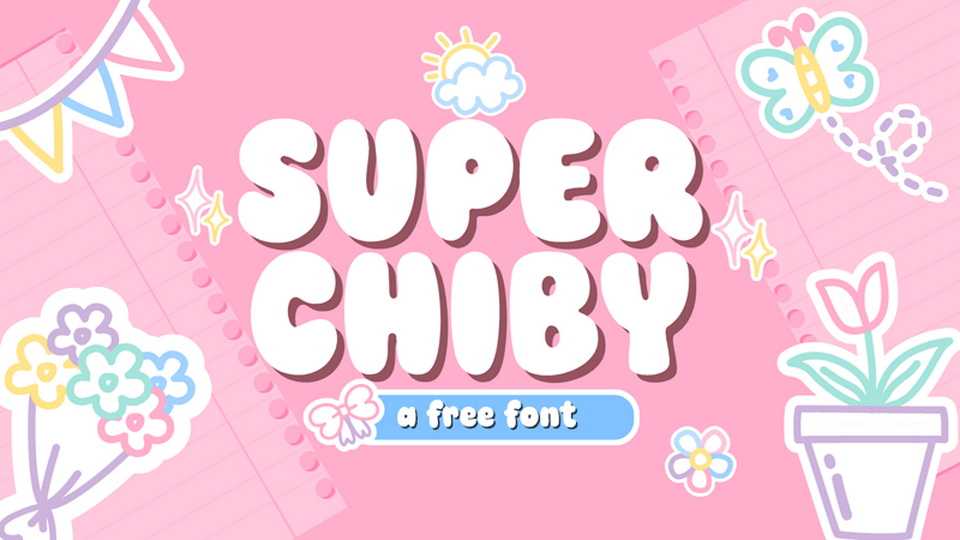
Download Super Chiby font, a bold and irresistibly cute hand-drawn typeface bursting with playful energy. Its rounded letterforms, soft edges, and bubbly proportions give it a cheerful and friendly personality